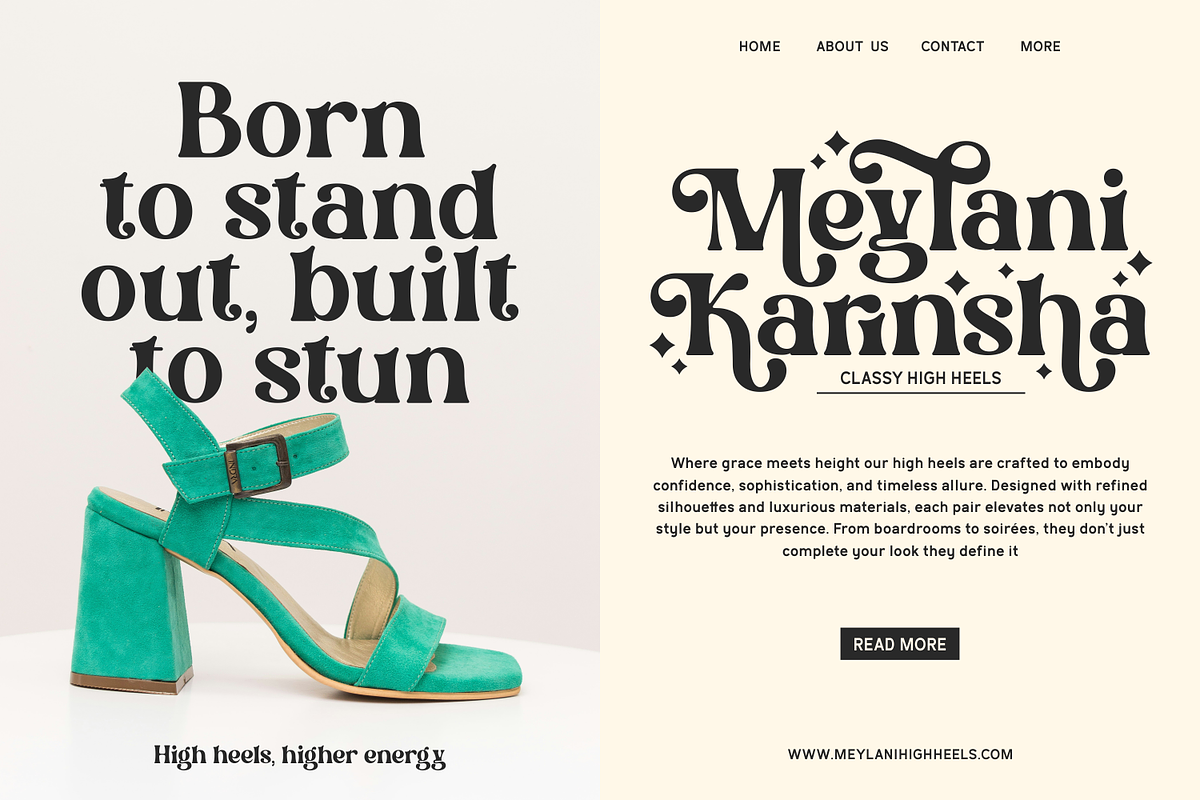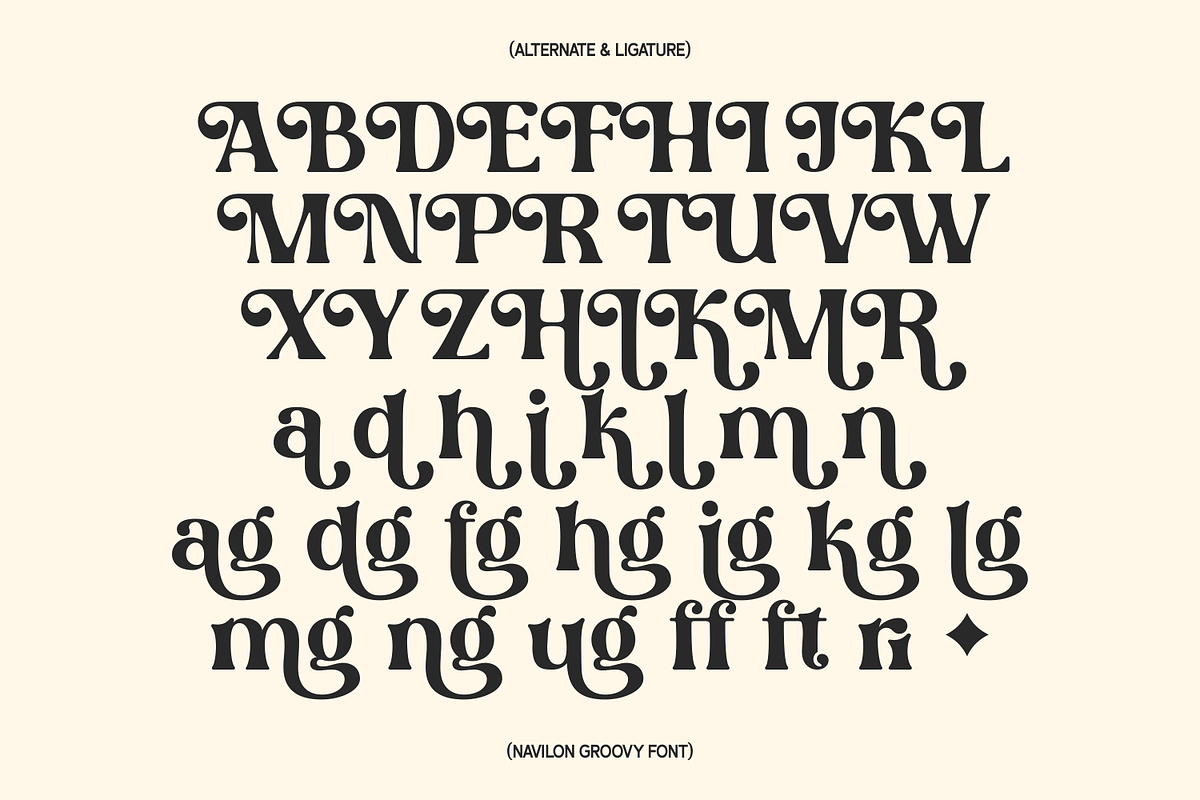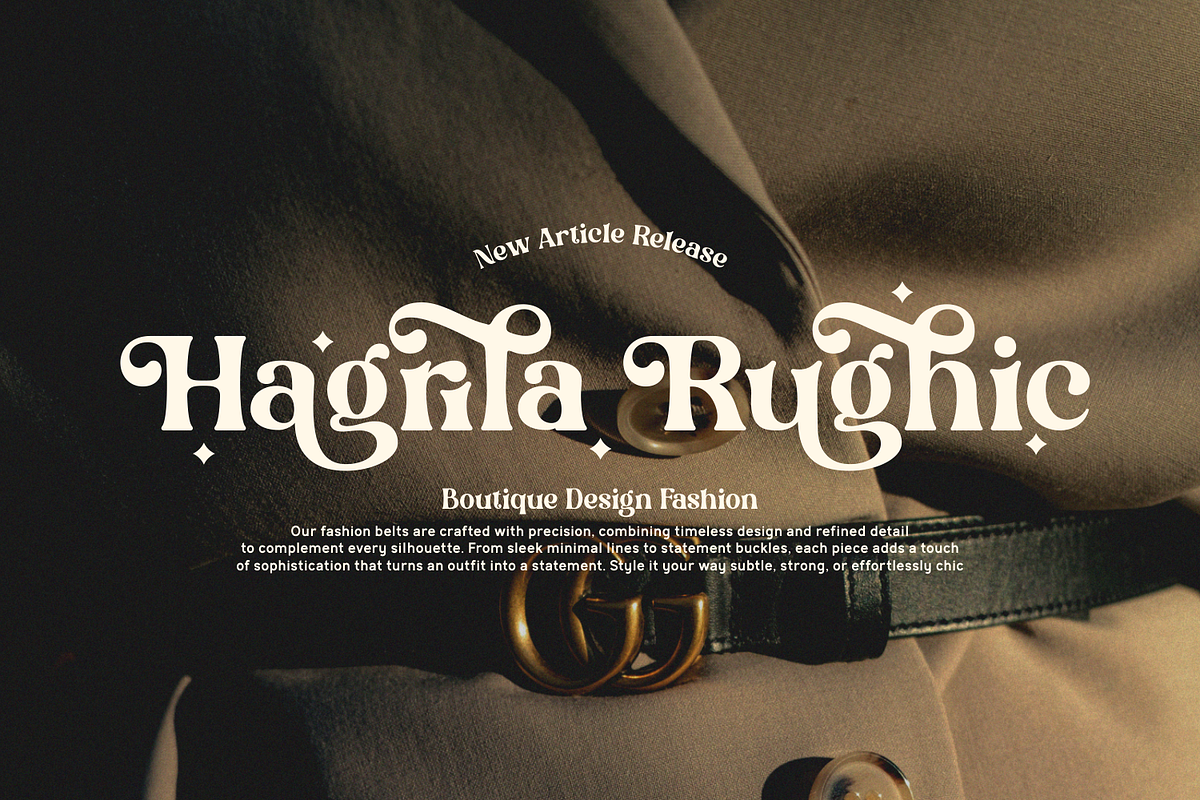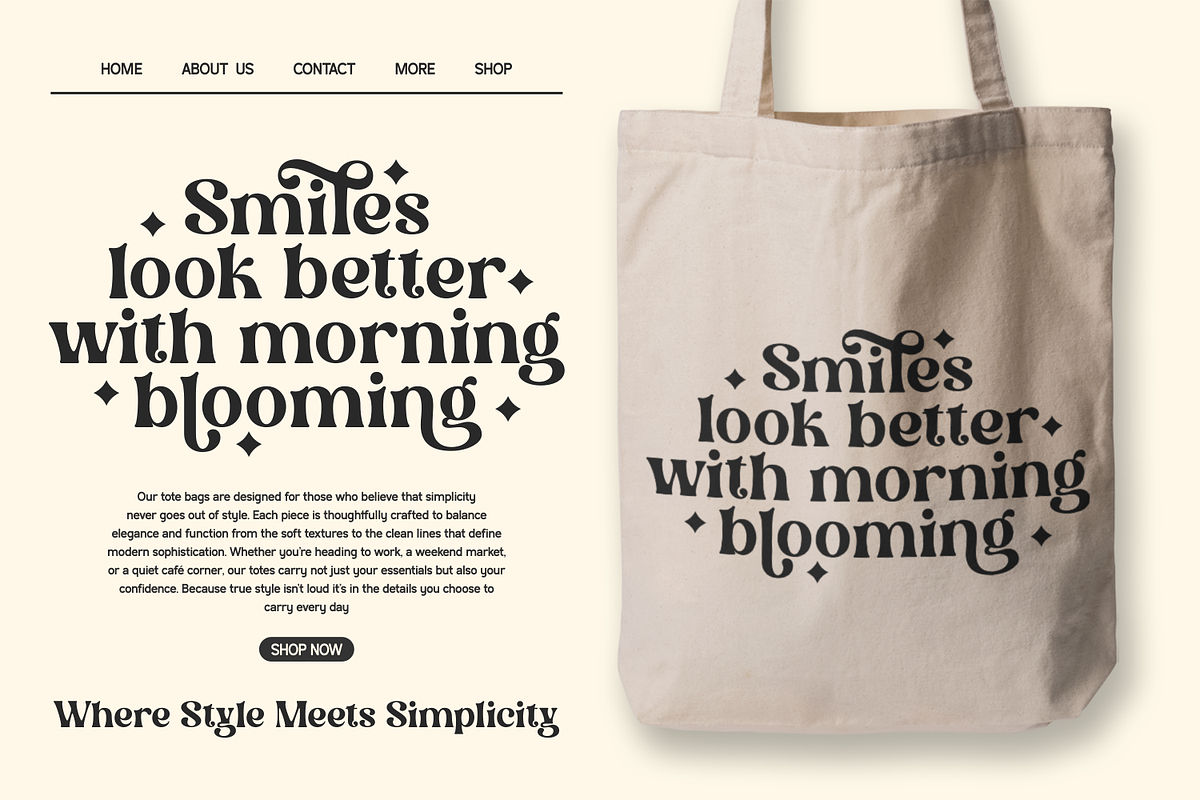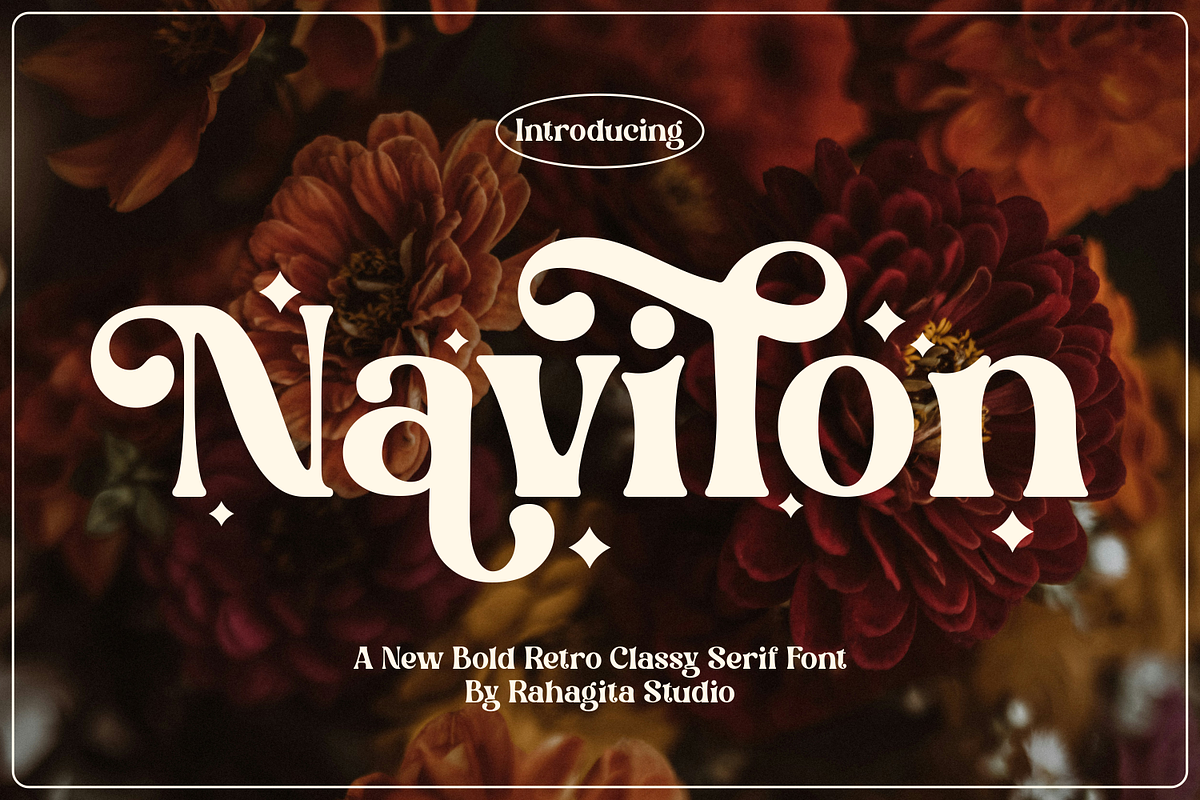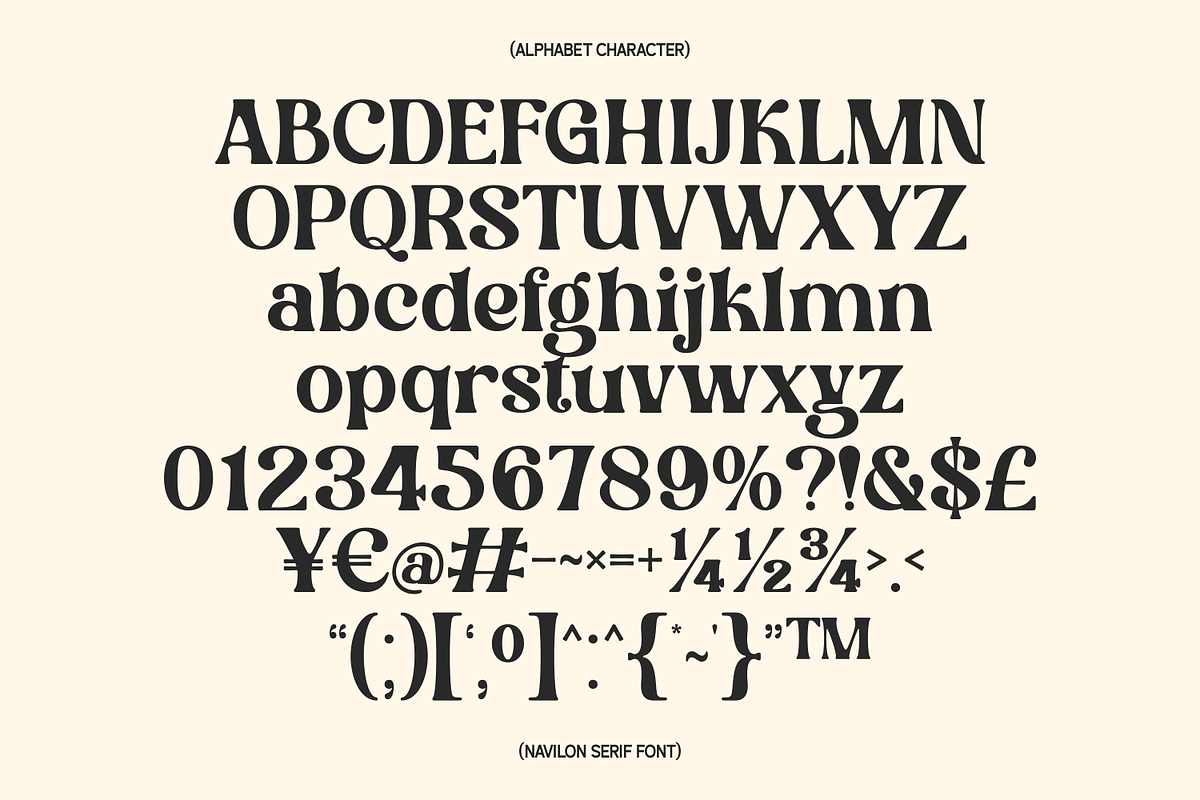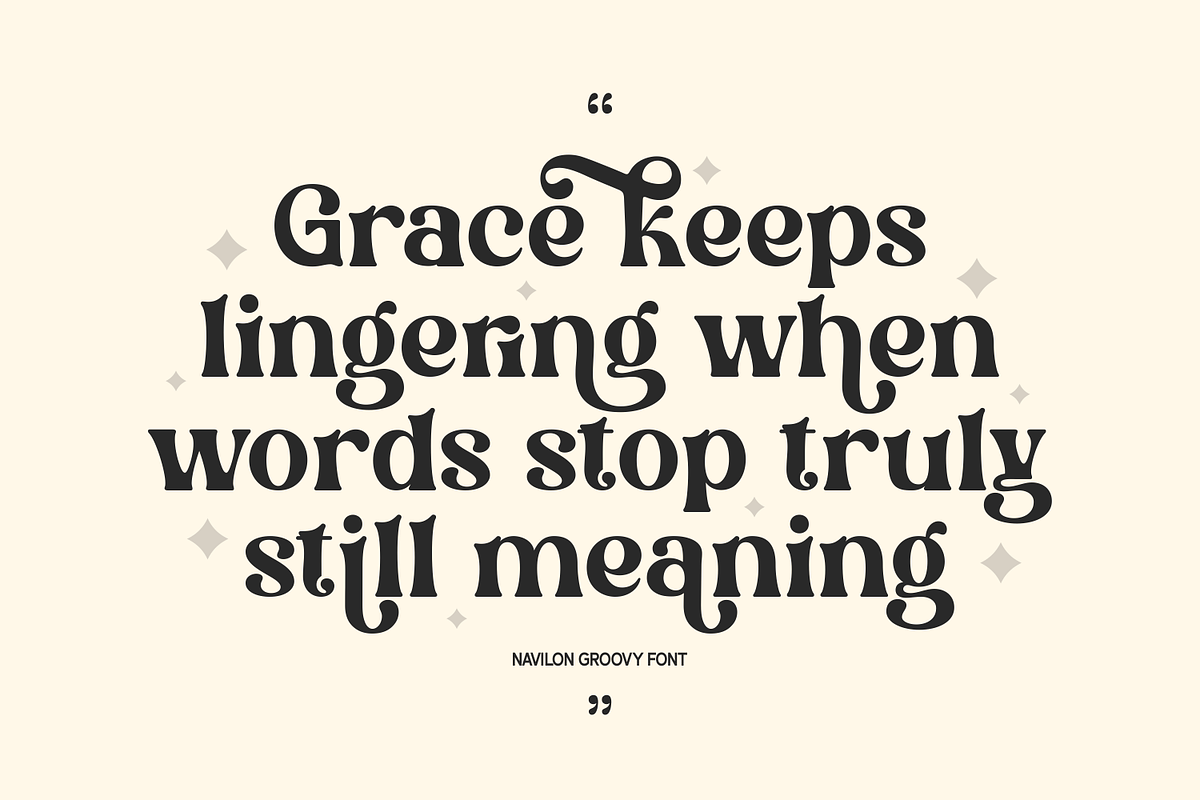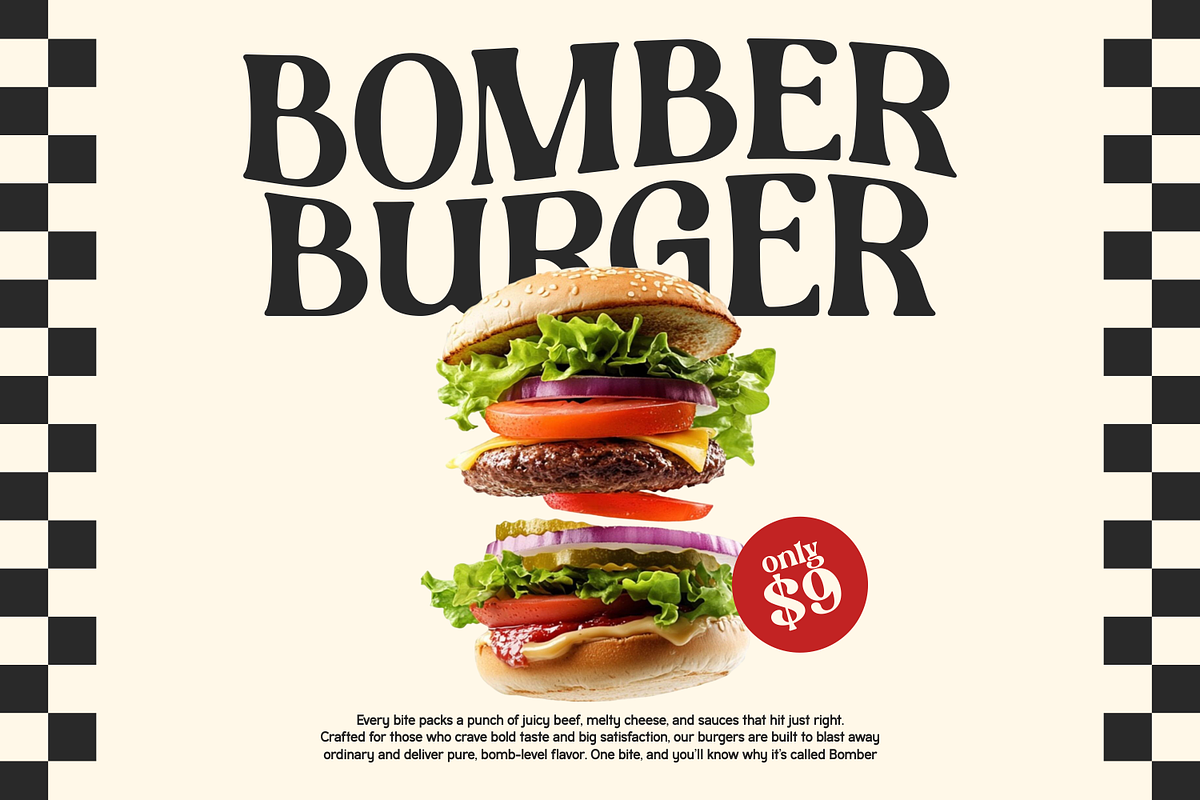
Navilon - Bold Retro Font
Navilon Groovy Font is a bold, retro-inspired serif display typeface that combines classic elegance with a distinctive groovy personality. Whether you’re designing a boutique fashion brand, a vintage burger joint, or a high-end product label, Navilon delivers instant visual impact with its expressive letterforms and fluid curves.
Full uppercase & lowercase alphabet characters
Alternate characters & ligature support (ag, dg, fg, hg, ig, kg, lg, mg, ng, ug, ff, ft, fi)
Complete numerals: 0–9
Extended punctuation & special characters: % ? ! & $ £ ¥ € @ # \\~ × = + ¼ ½ ¾ TM and more
Decorative star/sparkle ornament glyph (✦)
OpenType features: alternates, ligatures
Logo & branding design
Fashion & lifestyle packaging
Poster and banner design
Social media headers
Book covers & editorial layouts
Apparel and merchandise (tote bags, shirts, stickers)
Restaurant & food brand identity
Wedding and event stationery